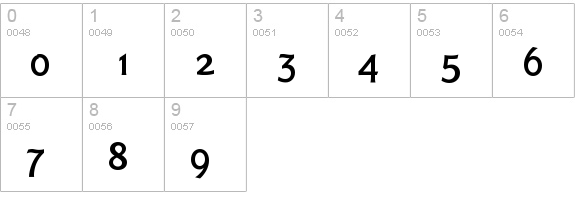
Introducing BadgerMediumExpert font, a stunning typeface that exudes elegance and sophistication. This versatile font is perfect for a wide range of design projects, from branding to editorial design. With its clean lines and balanced proportions, BadgerMediumExpert font strikes the perfect balance between modernity and timelessness. One of the best things about BadgerMediumExpert font is that it is completely free to download. You can easily access this beautiful font at FontsMarket.com, where you can explore a vast collection of high-quality fonts for all your design needs. Make a statement with BadgerMediumExpert font and take your designs to the next level.